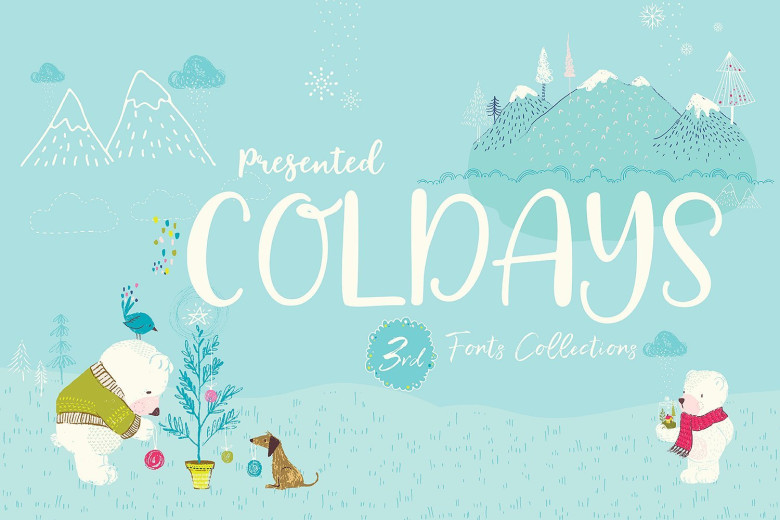
Coldays Memories Script Font
Hi Fonts and craft design lovers!! Introducing Coldays Memories. It is was designed by Saffatin. Coldays Memories is a set of beautiful fonts. This pack combines three trends, Hand Drawn Sans Serif Caps, Brush Script and Modern Scripts Calligraphy into one gorgeous package. Spend a little of your time making beautiful design combinations.